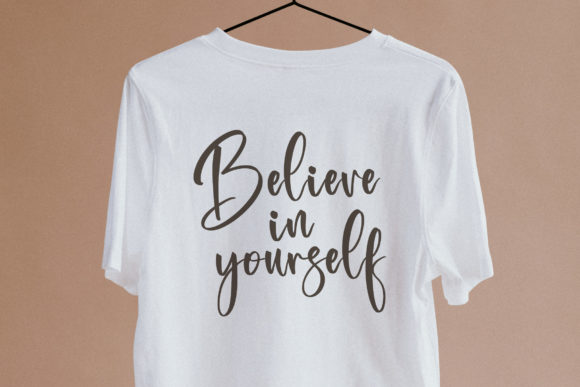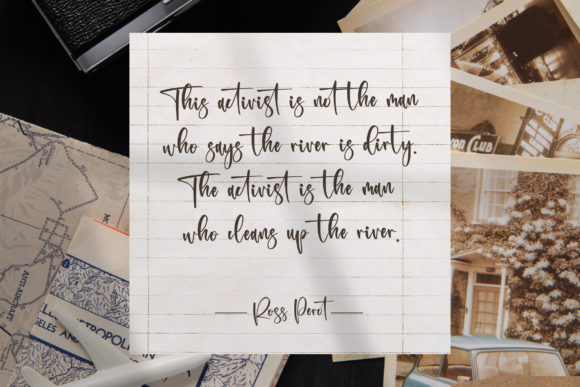
About Registeria Font
Registeria is a magical script font carefully created with a touch of elegance. This font is PUA encoded which means you can access all of the glyphs and swashes with ease!